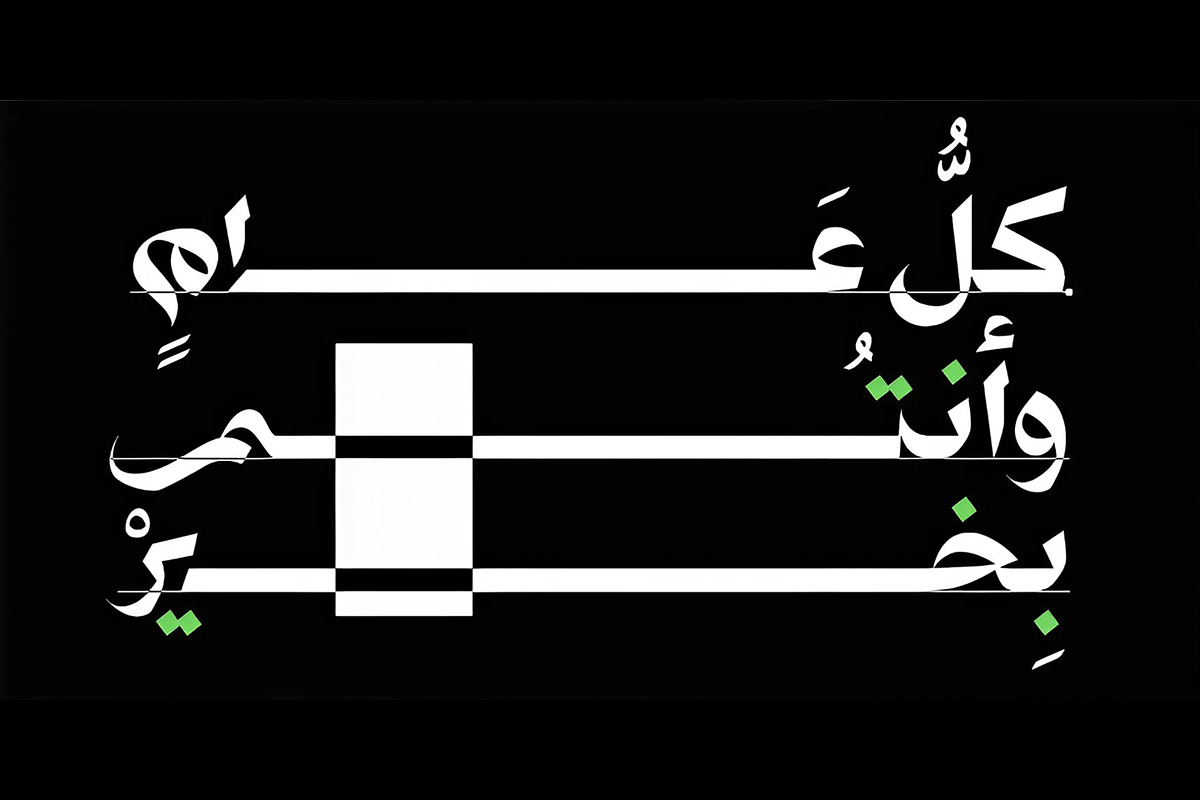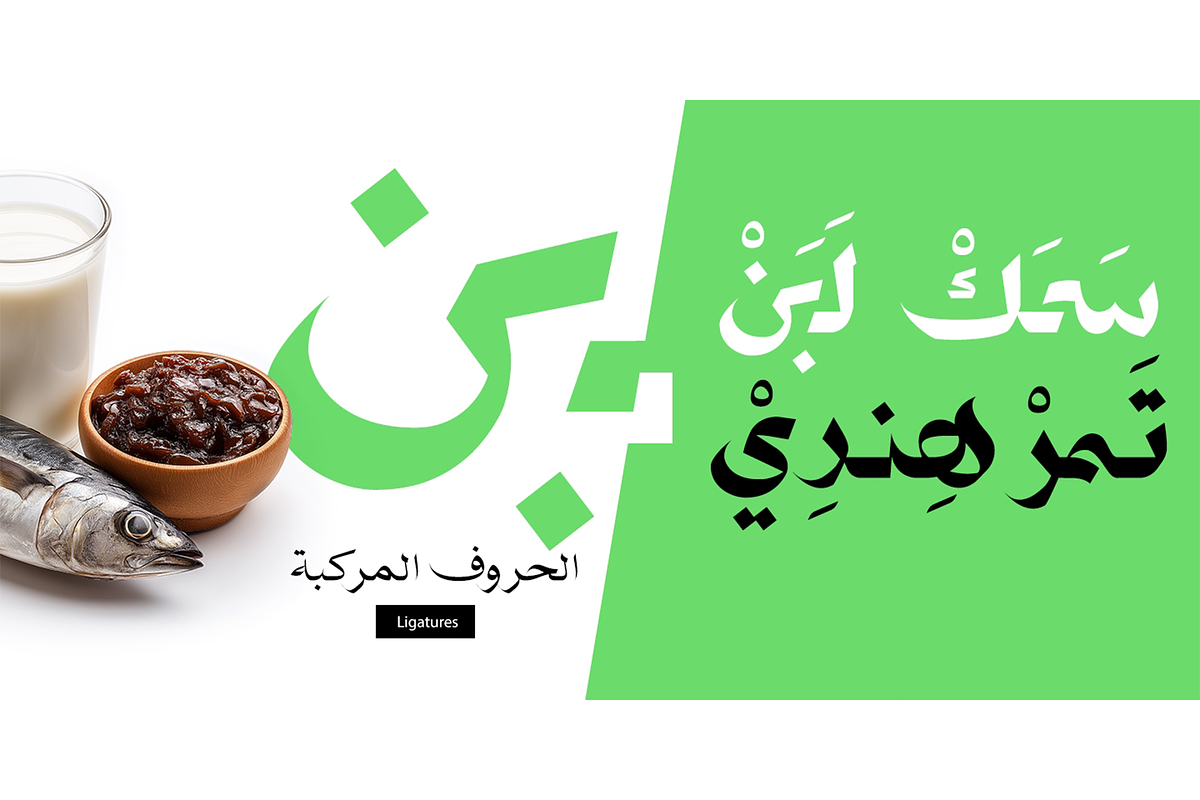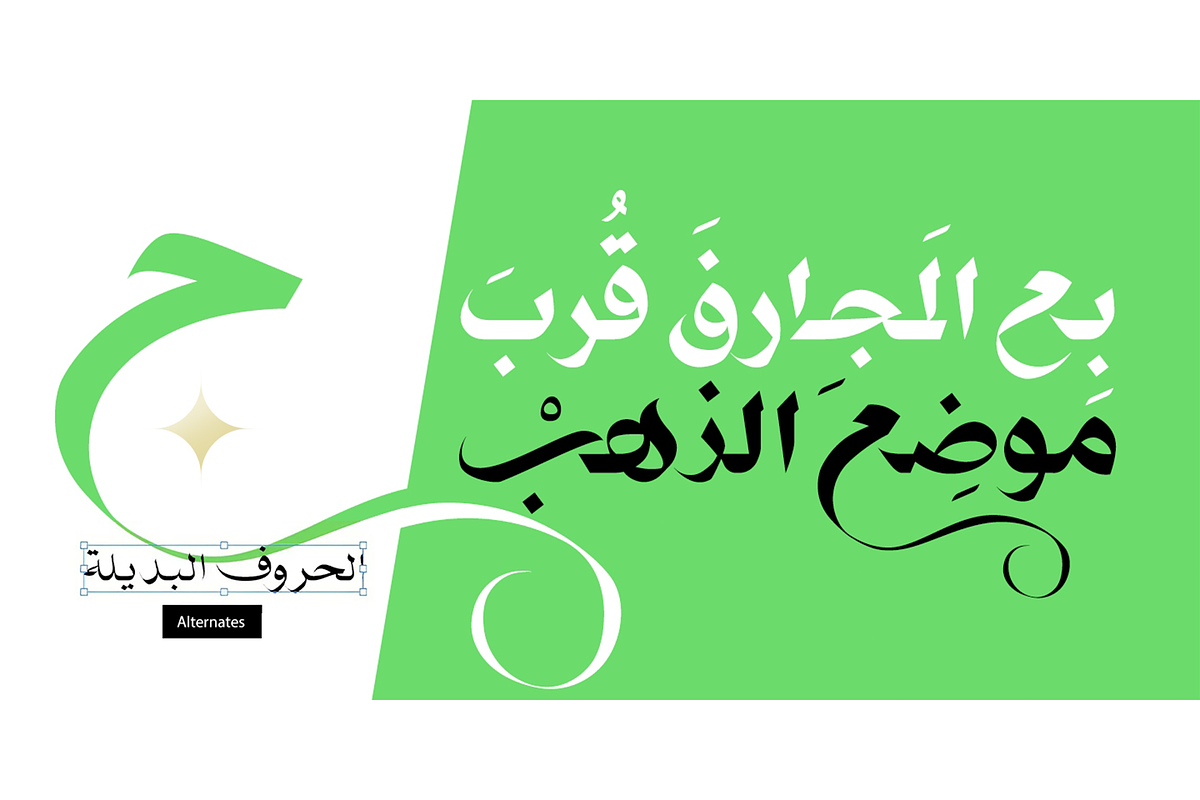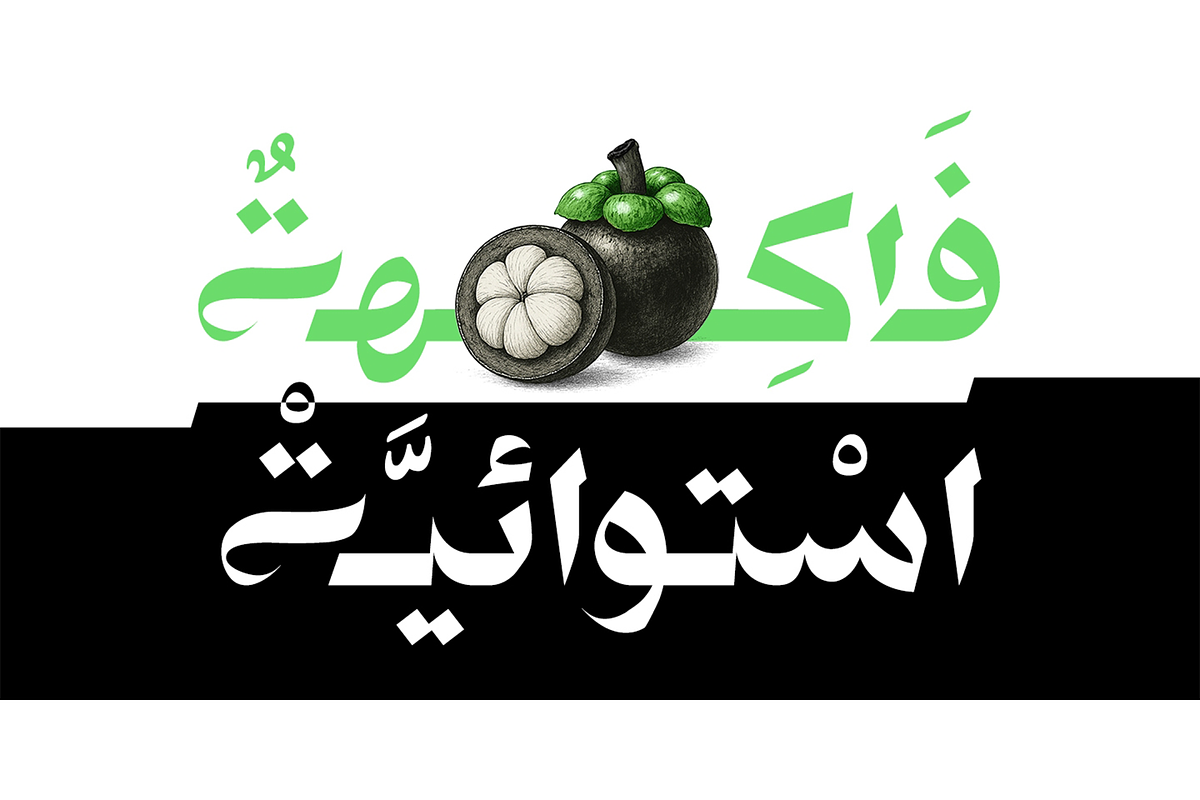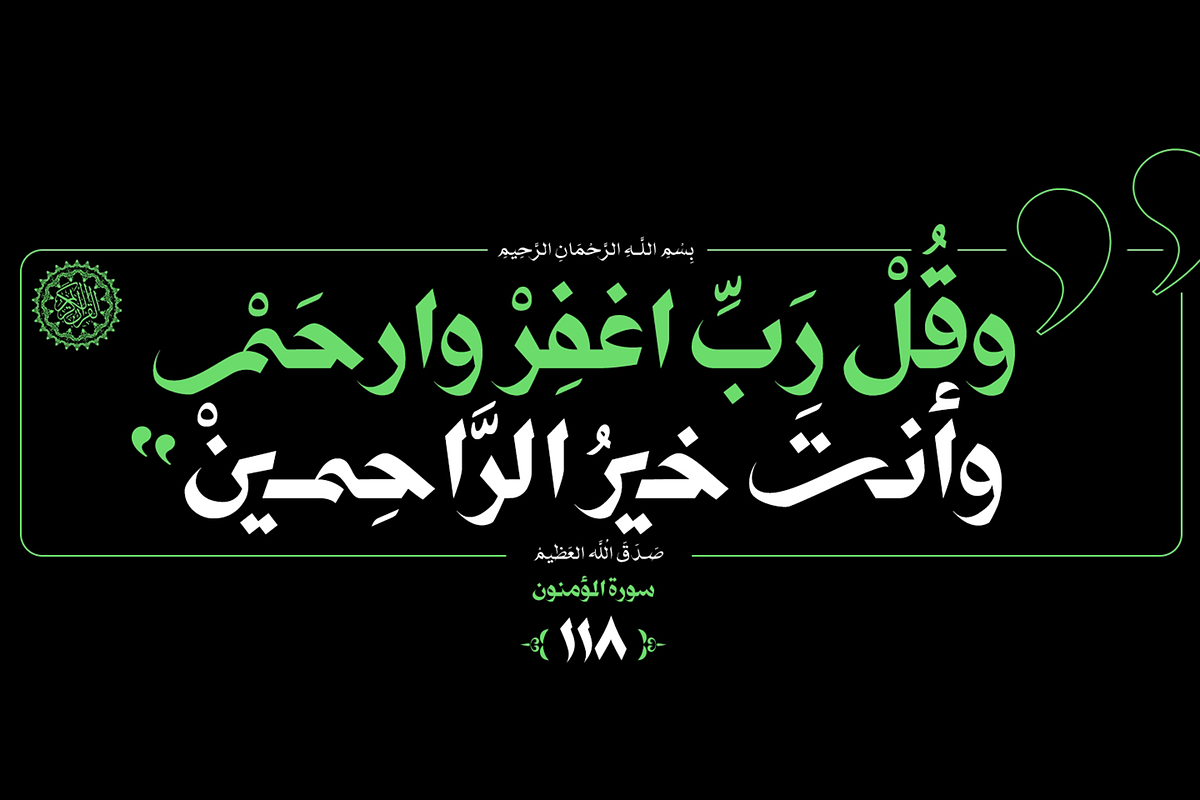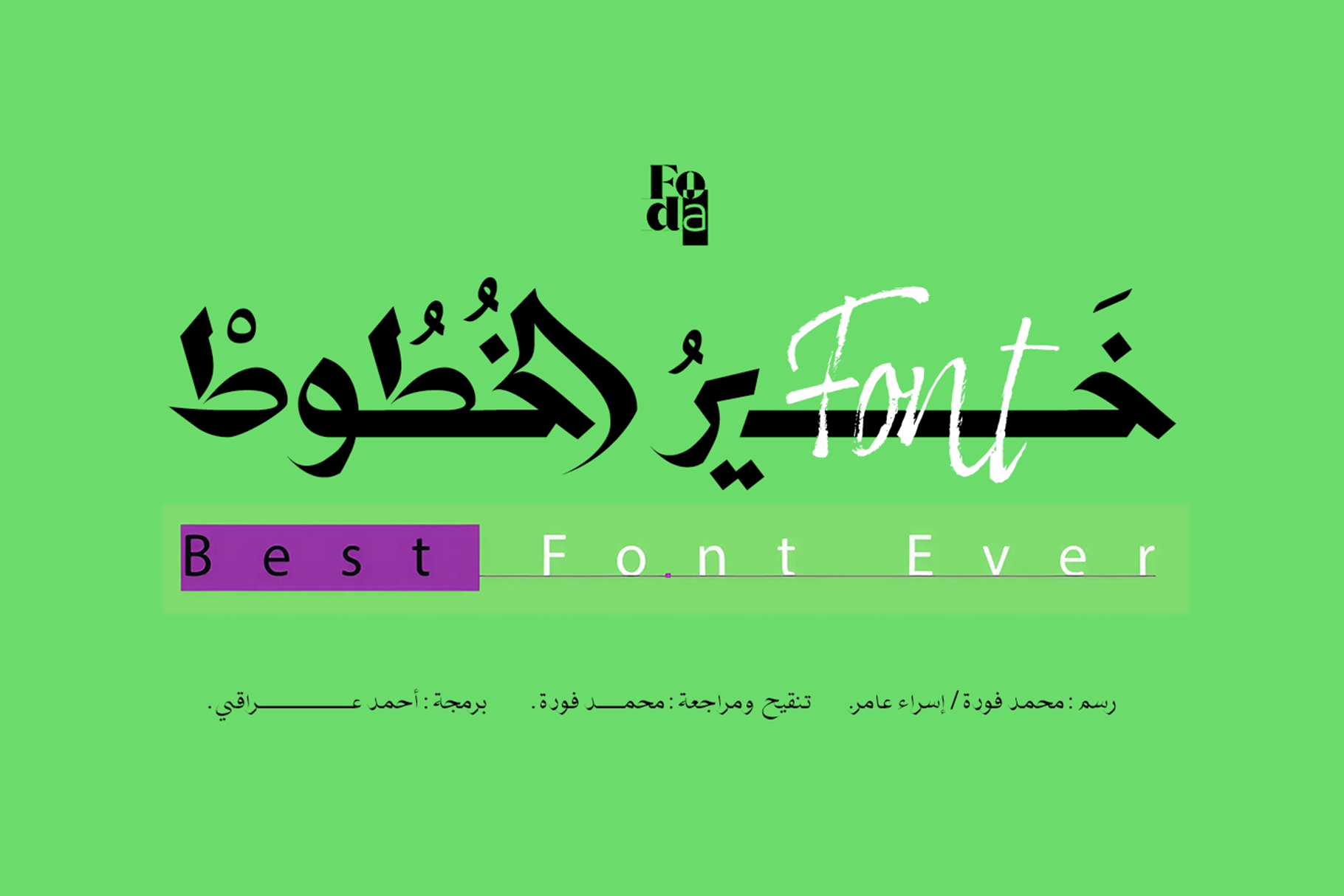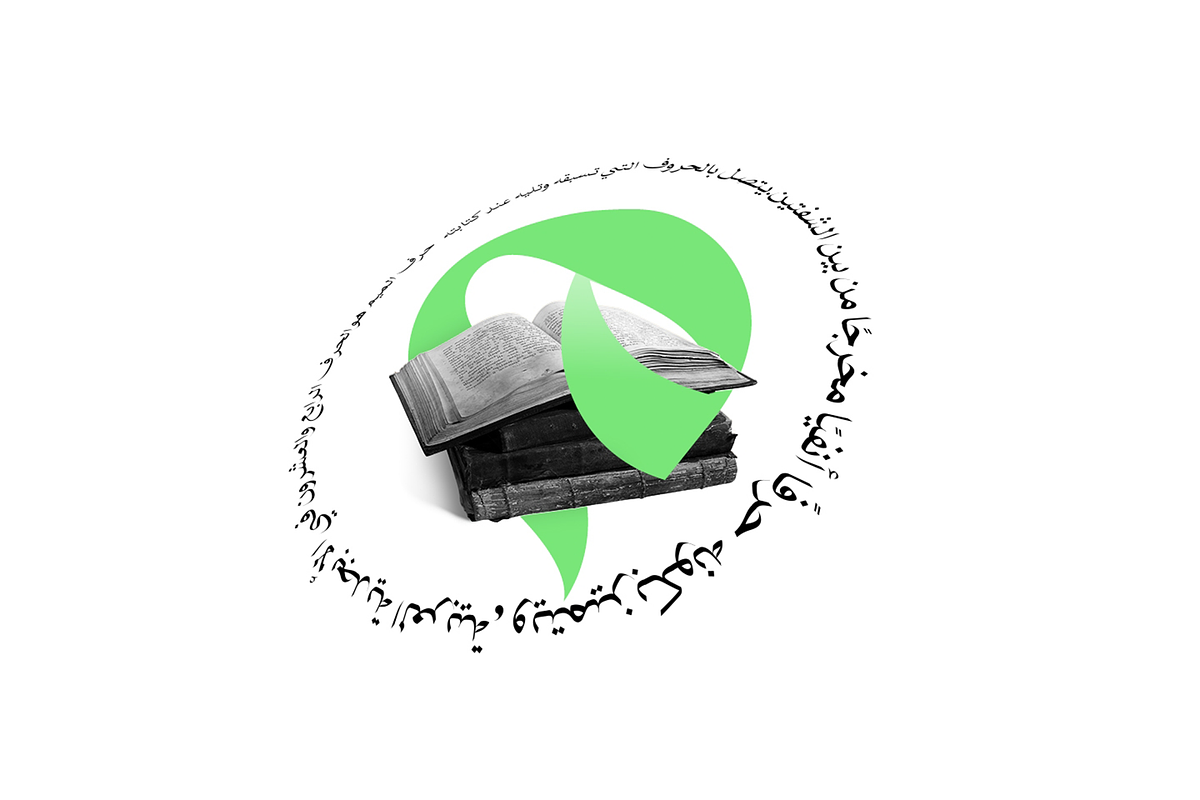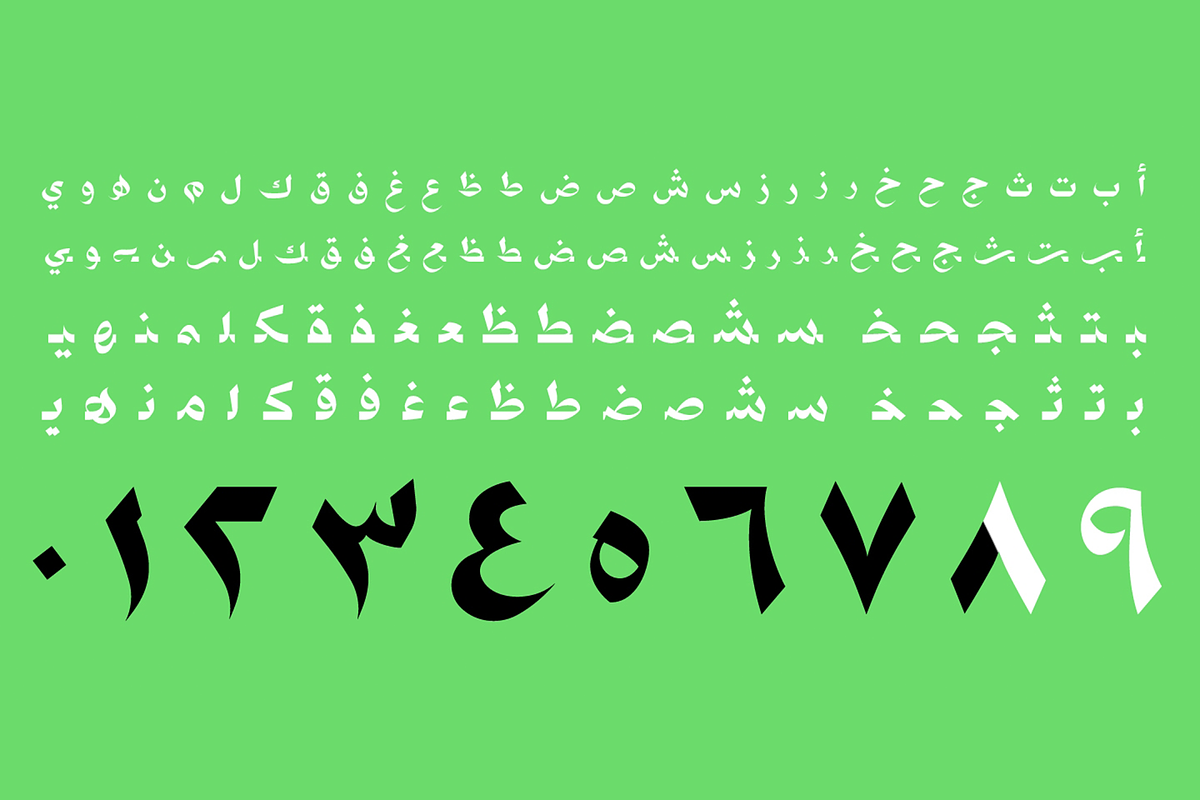
Best Font Ever Arabic
“Best Font Ever Arabic” is a contemporary Arabic display typeface that combines high-contrast strokes with angular, geometric forms to create a bold, modern look. Inspired by traditional Naskh calligraphy yet reinterpreted through sharp terminals and dynamic diagonals, Best Font Ever Arabic delivers striking legibility for large-scale headlines, branding, and editorial use. Its carefully crafted uppercase-style letters and numerals maintain harmony across Latin and Arabic scripts, while the robust weight range—from delicate hairlines to emphatic blacks—offers maximum versatility. Ideal for luxury packaging, cultural publications, and digital interfaces, Best Font Ever Arabic confidently bridges heritage and innovation in any creative project.